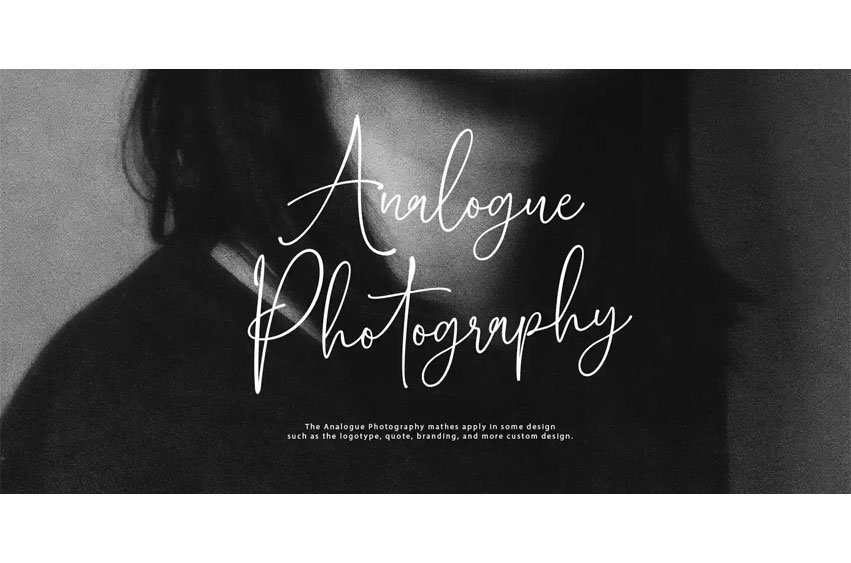
Analogue Photography Font is a handwritten signature font with fashionable themes.
The Analogue Photography matches apply to some designs, such as logotype, quotes, wedding invitation, business card, packaging, branding, and more custom design.